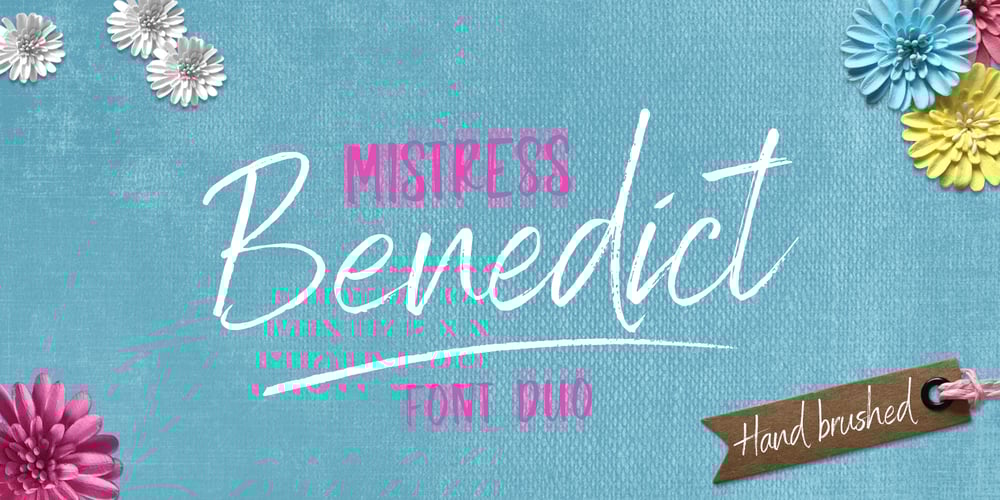
Mistress Benedict Brush Font Family was designed by Joanne Hewitt and published by Joanne Marie. Mistress Benedict Brush contains 2 styles and family package options. Introducing Mistress Benedict Font Duo – a pair of hand brushed fonts attentively designed to work together, helping to produce beautiful typography!This pack of two fonts works so well together and can be used for so many projects, from food packaging to a simple quote that you upload to Instagram. Use them on your t-shirts, mugs, cushions, handmade card designs, anything you like!What do you get?Benedict Font has a neat, handwritten style to it and it’s tall ascenders gives that added elegance. With it also being hand brushed Benedict is perfect for all hand lettering typographic designs and works well for short advertising headlines and sub-headers. Benedict has a full set of uppercase and lowercase alternates giving you a different style – it’s like two fonts in one! Mistress Benedict Brush includes ligatures, discretionary ligatures and a full set of alternate characters. It also has international character support.Mistress Benedict Caps was hand brushed with the same brush pen and is the perfect companion for Benedict. It’s an all caps font where the alternates are actually the lowercase letters. It looks gorgeous on it’s own too!Like the brush version, Mistress Benedict also supports international languages.Well, there it is! I really hope that you enjoy using this font duo and please ask if you have any questions.Jo